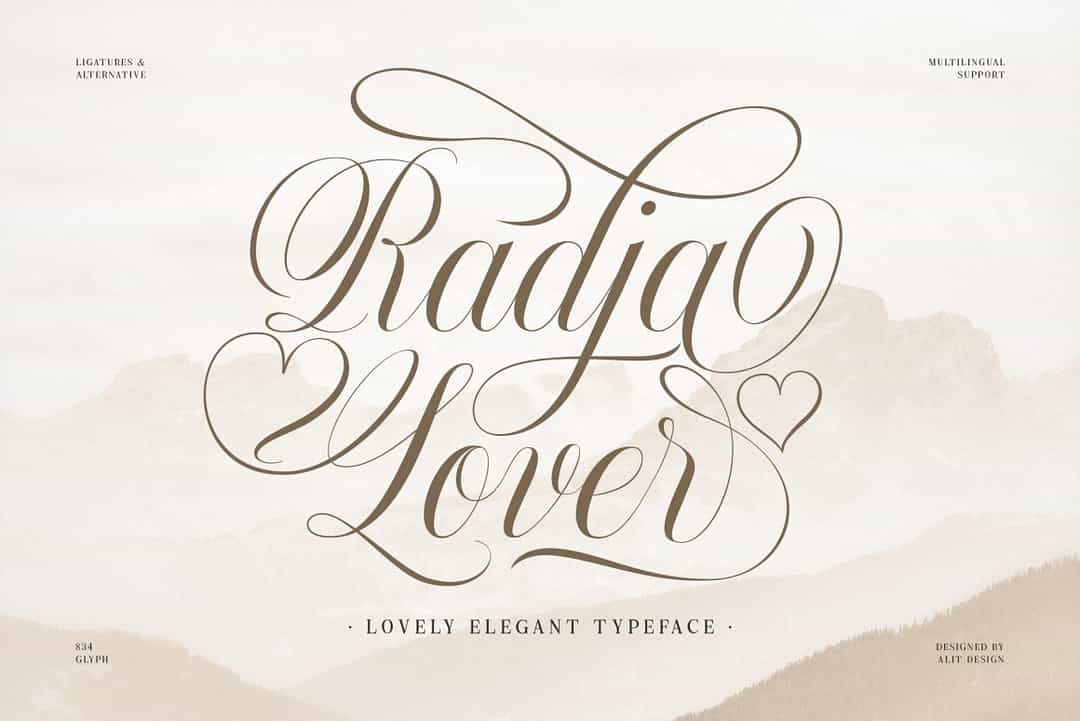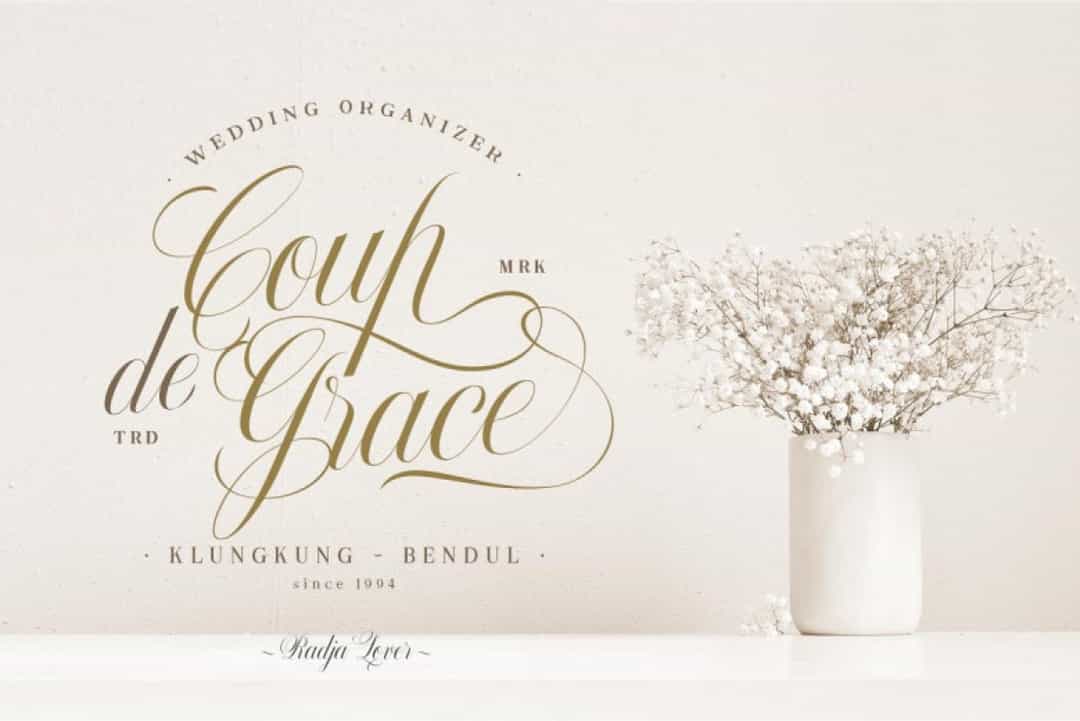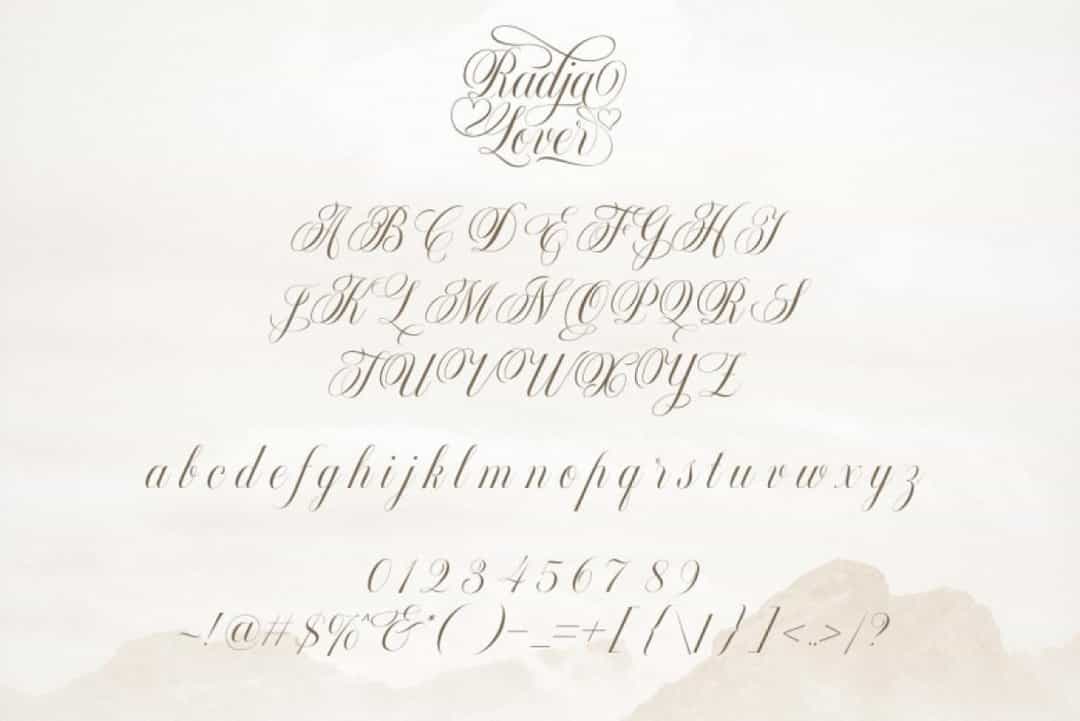
Radja Lover Calligraphy Script Font is an elegant Valentine’s day-inspired font designed for romantic themes. The Radja Lover Script Font adheres to a clean and modern writing style while offering distinctive heart-shaped swashes as a bonus feature, making this font perfect for unique love designs.